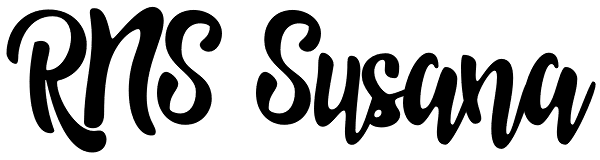
RNS Susana
RNS Susana is a hand lettered brush font, with a great groovy touch. The font has a set of alternates used on contextual substitution to give it a more organic look. The design was set with a marker brush pen, making emphasis on showing the...